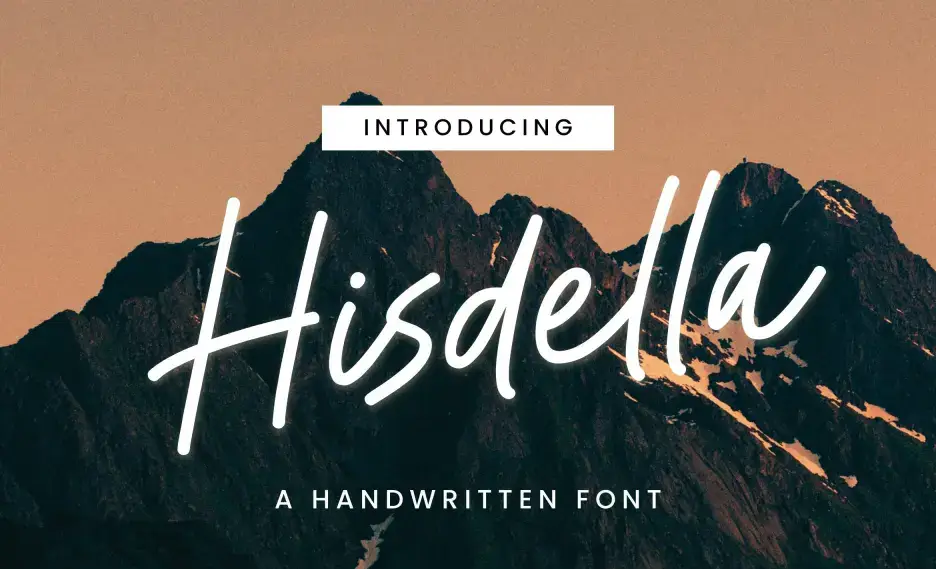
Hisdella – A Handwritten Font H9Aadsb
Introducing Hisdella, a beautifully crafted handwritten font that adds a personal touch to your projects. This font features a unique style that mimics the fluidity of natural handwriting, making it perfect for a variety of applications.
• Elegant handwritten style
• Easy to read and aesthetically pleasing
• Ideal for branding, logos, and personal projects
• Perfect for invitations, greeting cards, and social media graphics
• Use in web design for a friendly and inviting look